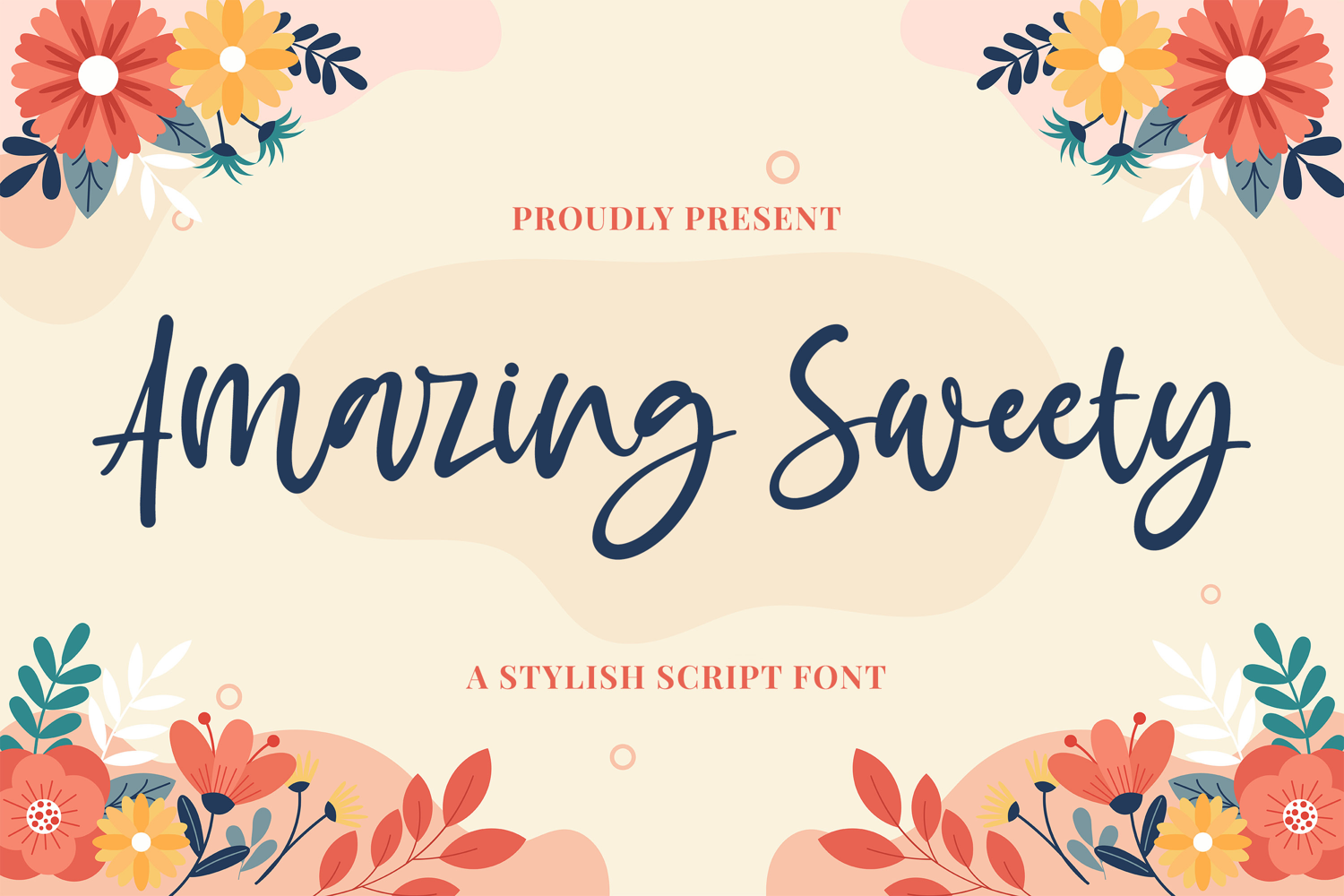
Amazing Sweety - A Stylish Script Font
Amazing Sweety font with a Stylish Script perfect for any creative design. This handmade font will make your design has a beautiful natural touch for each details. It is perfect for any design project as Invitation,logo, book cover, craft or any design purposes.
This font is PUA encoded which means you can access all of the magical glyphs and swashes with ease! It also features a wealth of special features including alternate glyphs and ligatures.